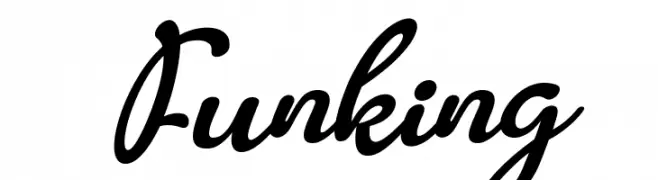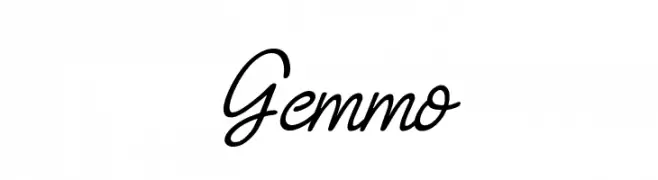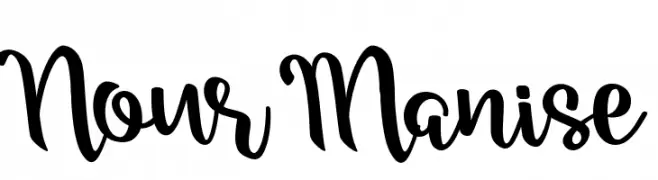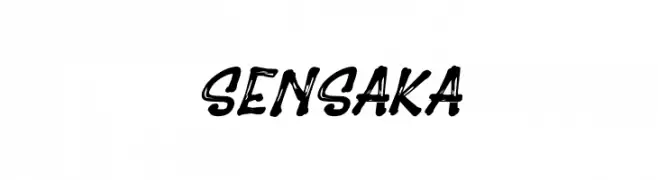
An elegant cursive script font with smooth, interconnected strokes.
A playful, expressive script font with a lively, handwritten style.
A lively and elegant script font with flowing cursive letters.
A graceful script font with flowing, interconnected letters and elegant curves.
A playful, cursive script font with elegant loops and swirls.
A graceful script font with fluid, interconnected strokes and a natural handwriting style.
A bold, artistic font with a hand-drawn, whimsical style.
A bold, expressive handwritten font with fluid strokes and a brush-like texture.
A playful and artistic script font with dynamic strokes and whimsical flair.
A bold, dynamic brush script font with fluid strokes and expressive style.